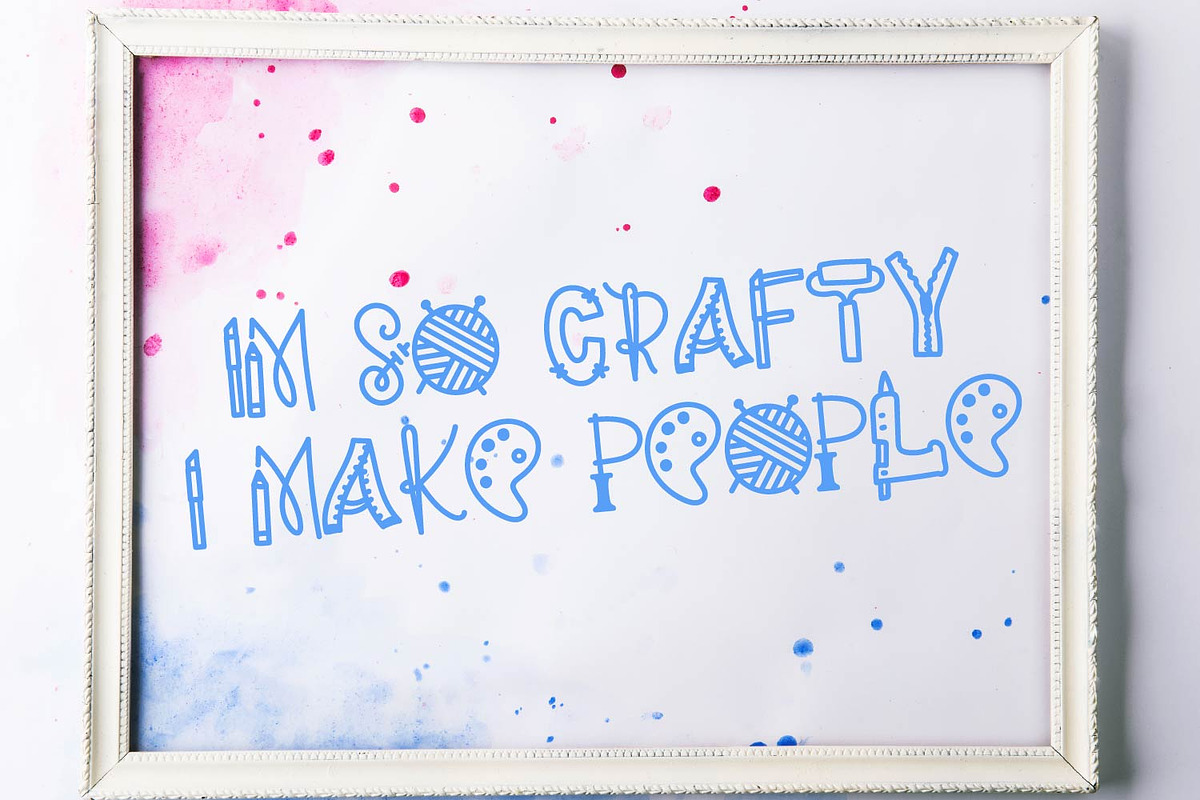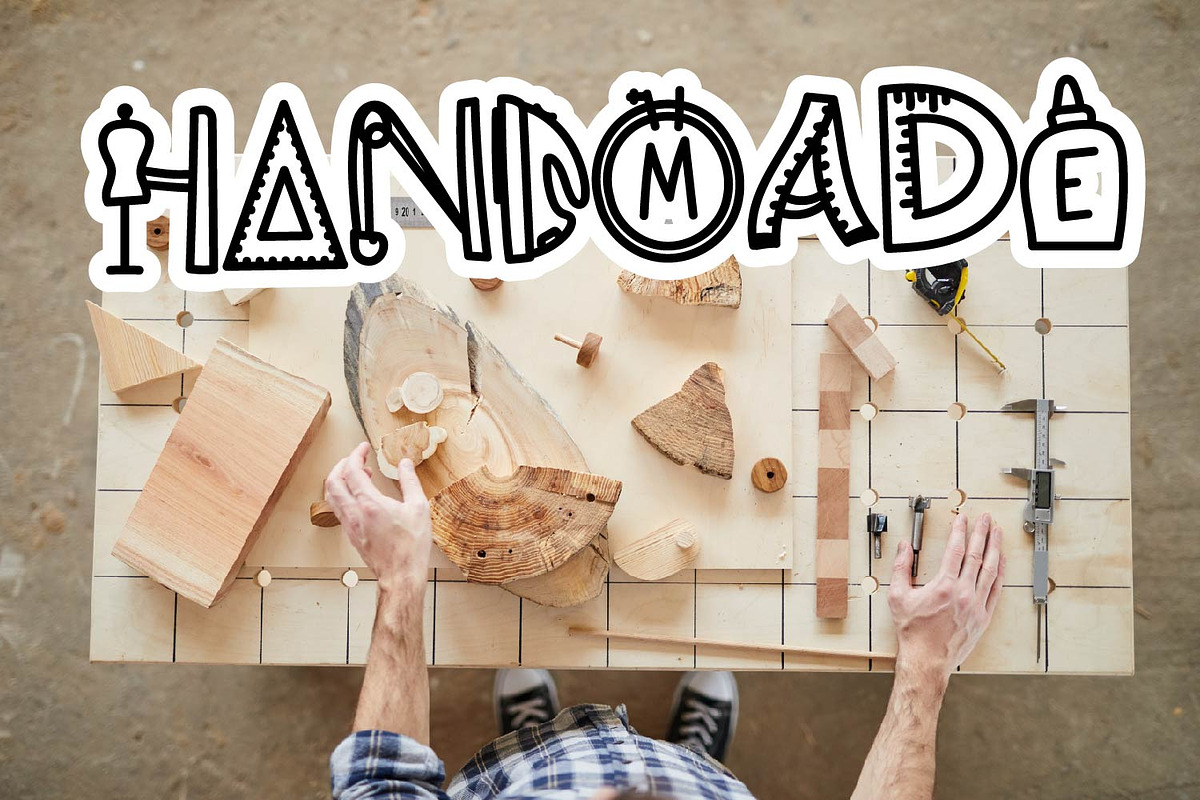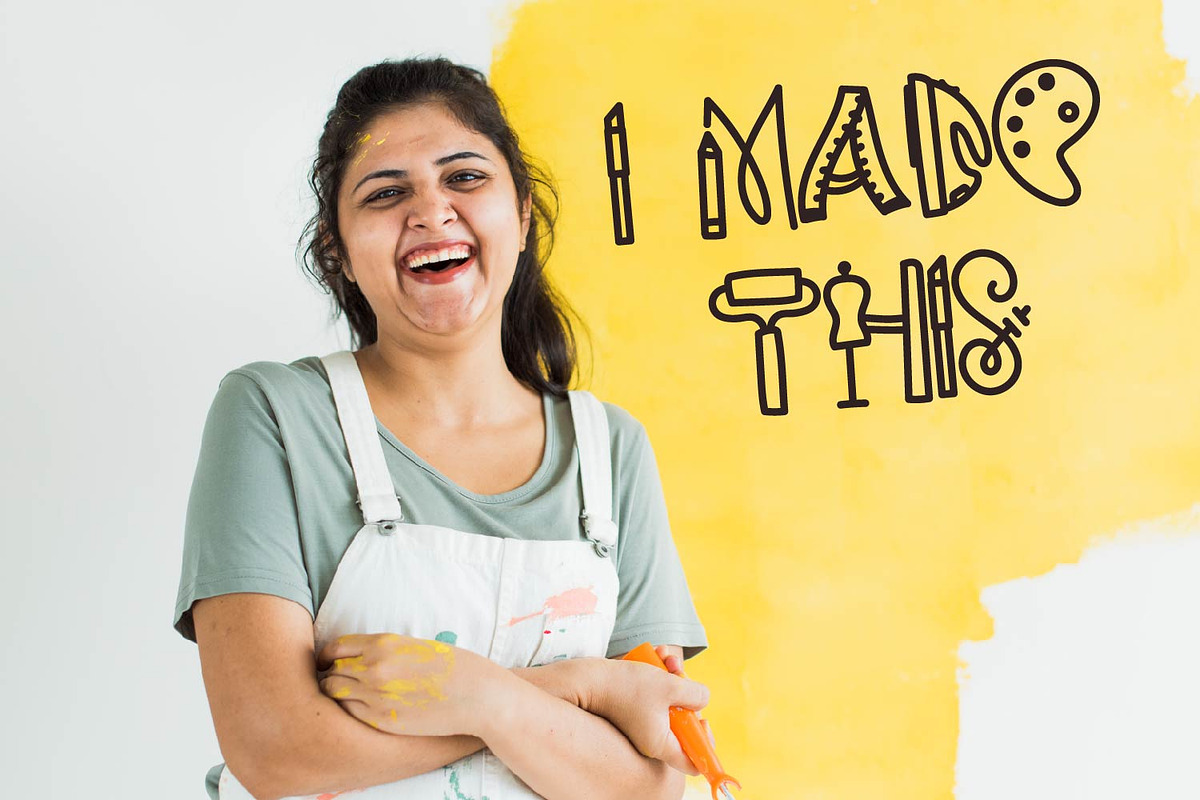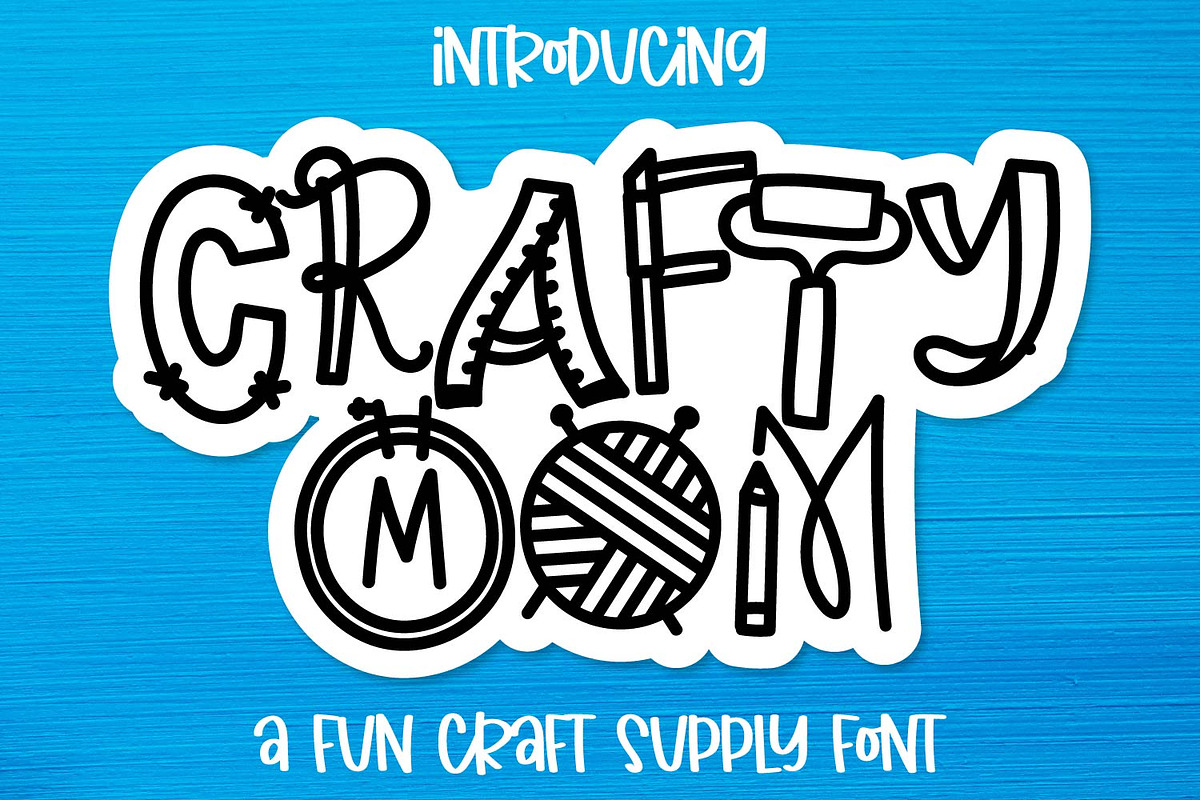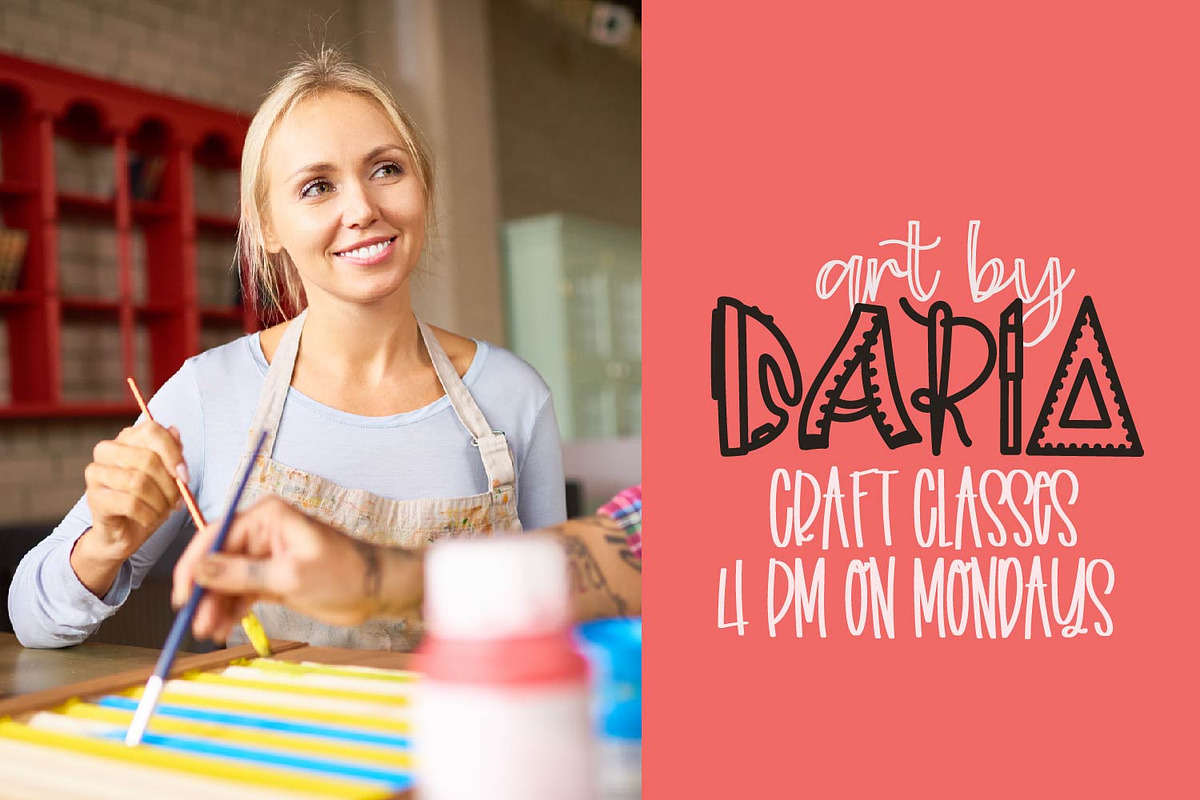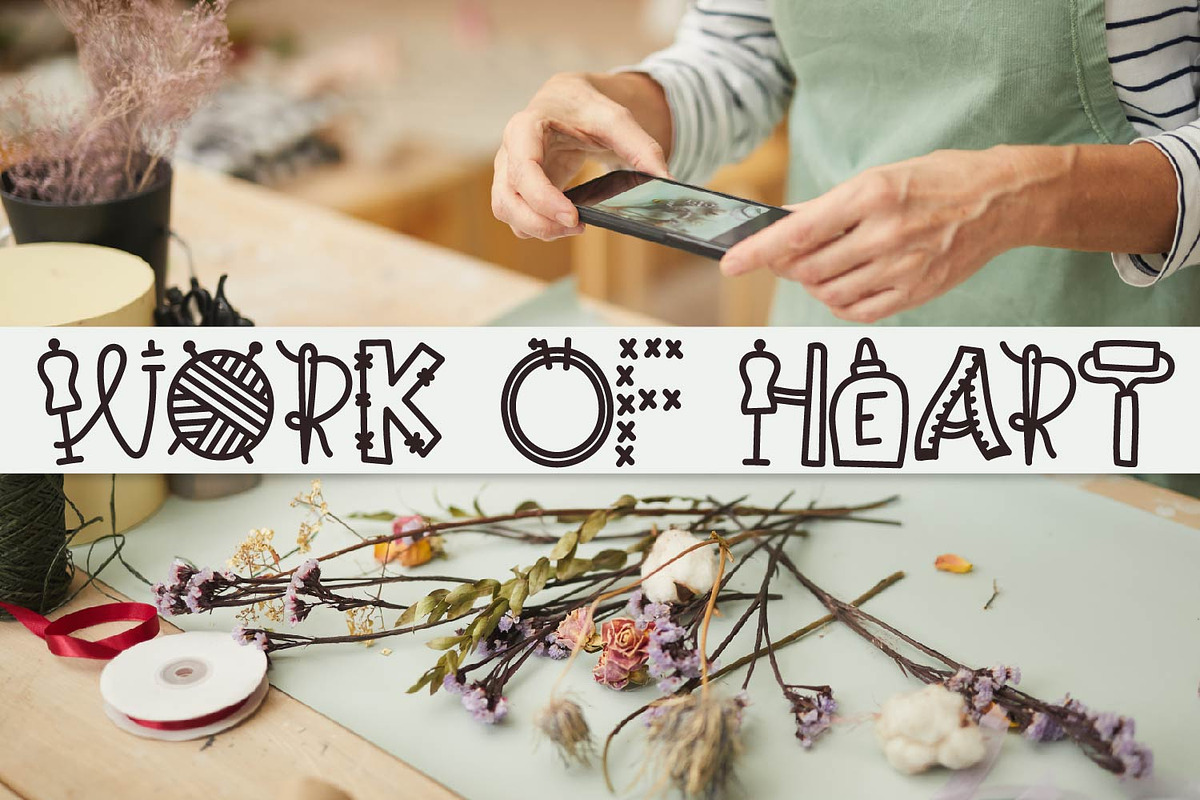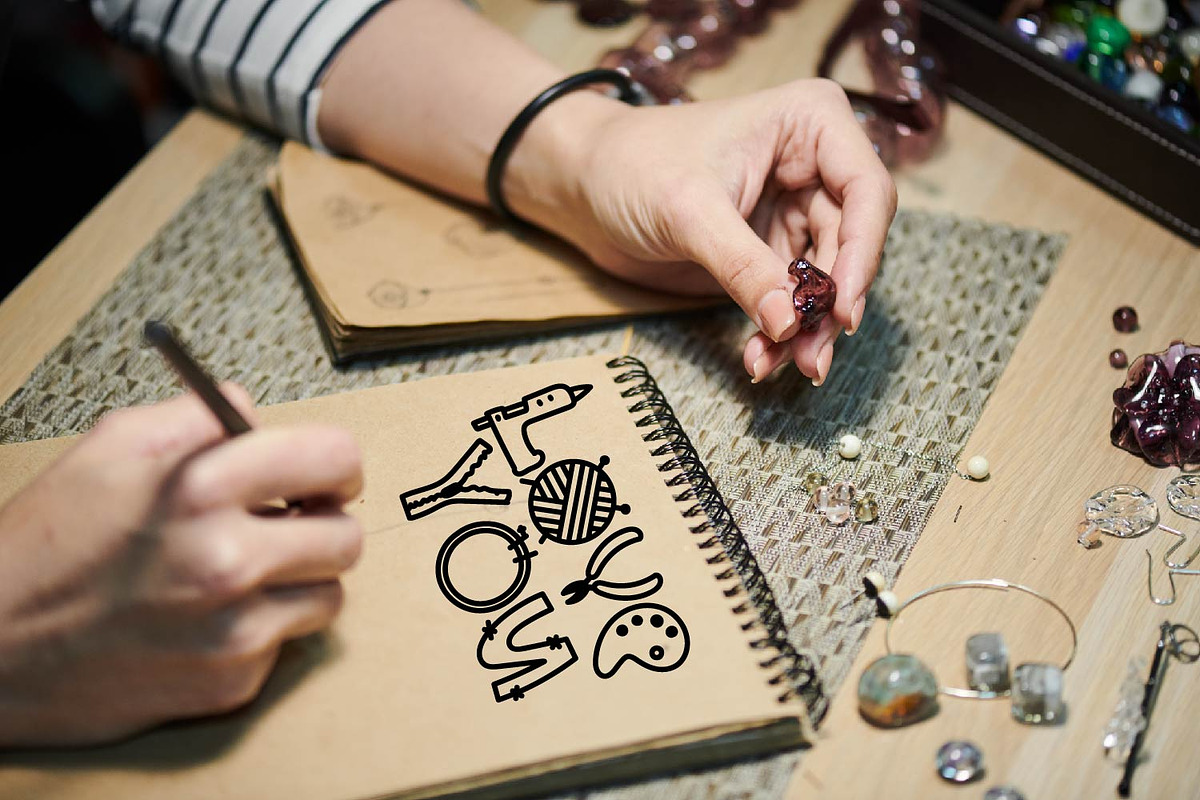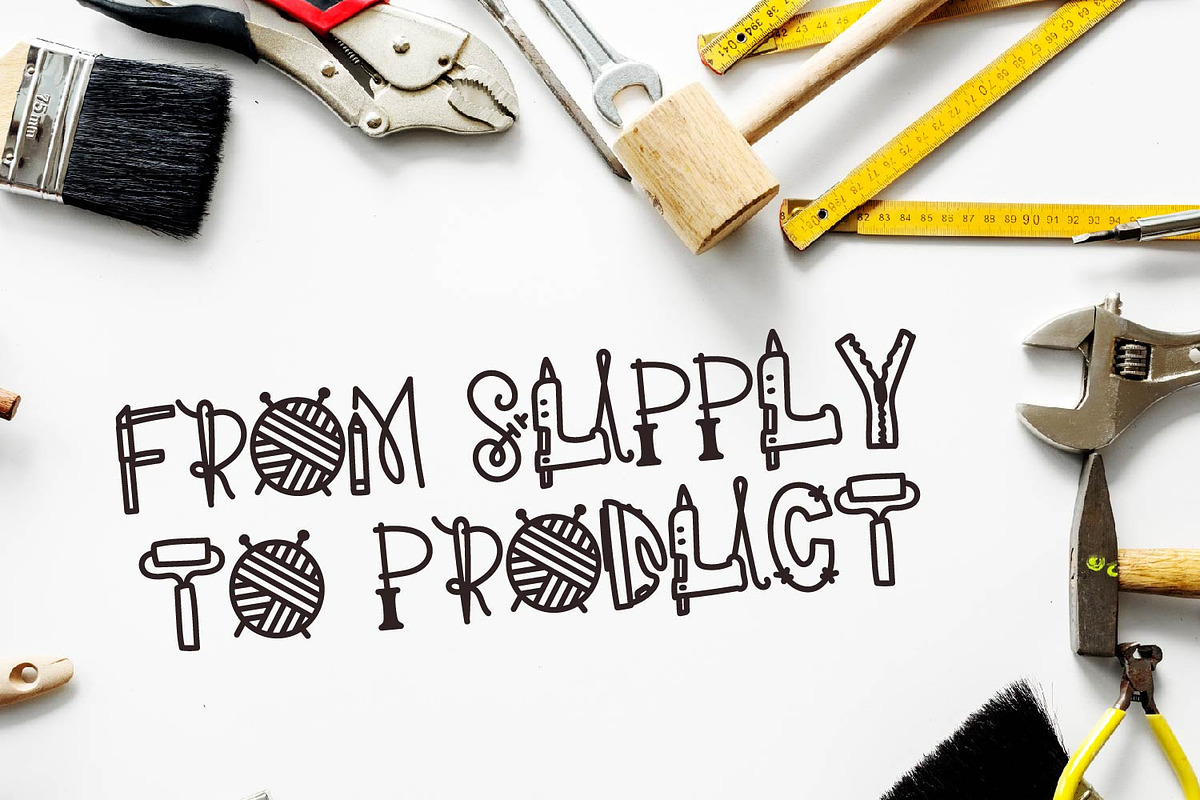
Crafty Mom - Craft Supply Font
Crafty Mom Craft Supply Font by CraftyLittleNodes is a font selected for branding, posters, packaging, typography.
Why Crafty Mom - Craft Supply Font is worth a look
Crafty Mom - Craft Supply Font by CraftyLittleNodes fits naturally into Branding, posters, packaging, typography.